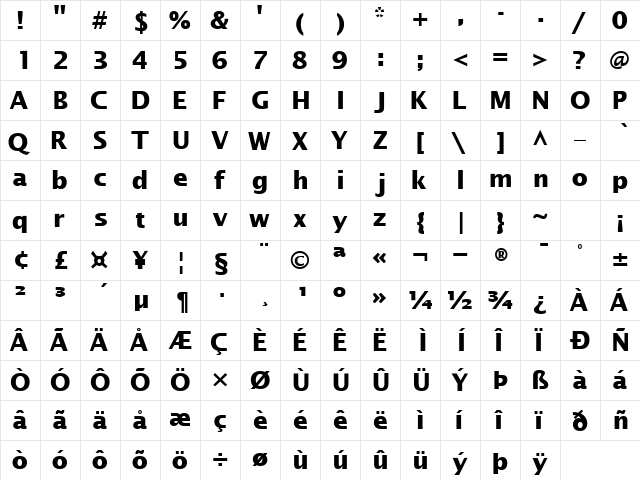
MachadoSansSSK Bold Font Preview
MachadoSansSSK Bold
Design Context for MachadoSansSSK Typeface
MachadoSansSSK is a composed and adaptable typeface that performs quietly and consistently across a wide range of design contexts. The heavy weight commands attention and anchors typographic hierarchies.